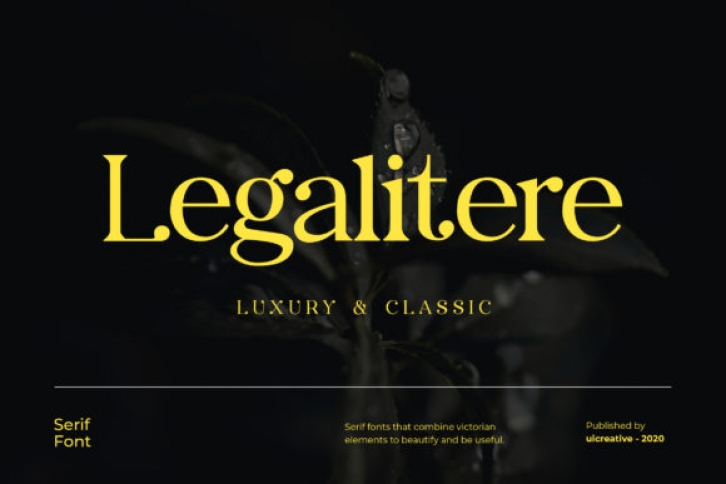
Legalitere is a simple and classic serif font. It can easily be matched to an incredibly large set of projects, so add it to your creative ideas and notice how it makes them stand out!